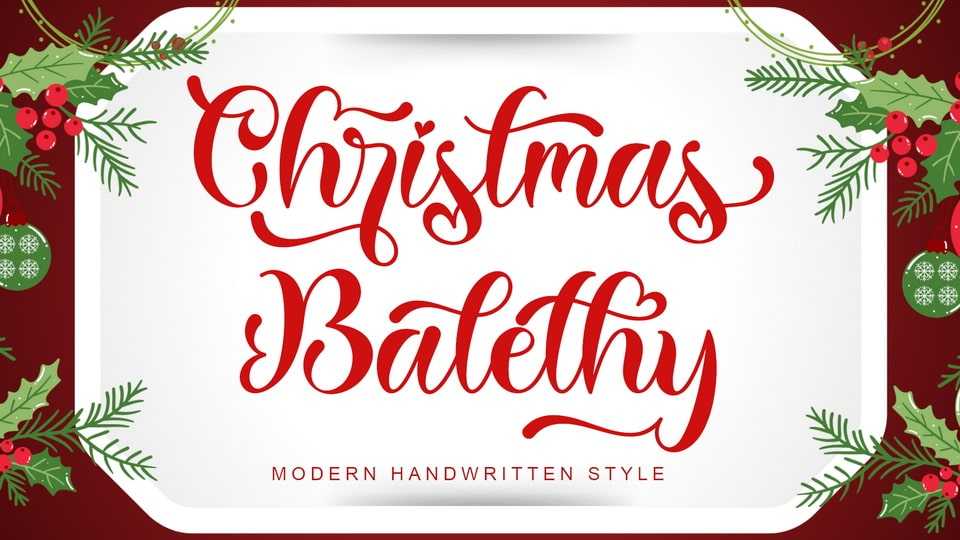
Download Christmas Balethy font, a unique and beautiful handwritten typeface. It’s perfect for Christmas, Halloween, back to school, teachers, Valentine’s Day, invitations, and more.